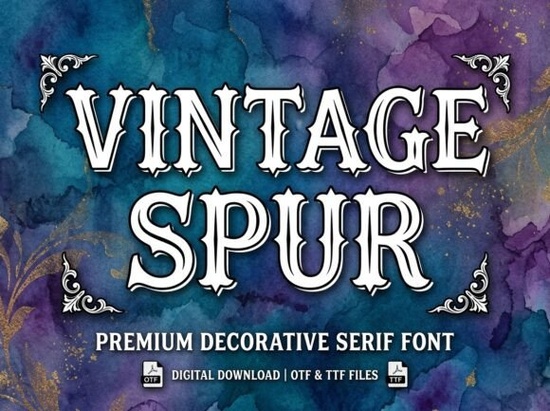
Vintage Spur Font
If you're looking for a bold, nostalgic display font that works as well on a vintage circus poster as it does on a custom vinyl decal or tattoo flash sheet, Vintage Spur Font fits the bill. It’s not just another retro typeface it’s built with real design intent: clean outlines, elegant inline detailing, and those unmistakable spurred serifs that nod to early 20th-century signage and Western Americana. Whether you’re designing for print-on-demand apparel, hand-cut vinyl projects, or digital coloring pages, this font gives you flexibility without sacrificing character.
What makes Vintage Spur different from other vintage fonts?
Most retro display fonts lean heavily into distressing grunge textures, ink bleeds, or uneven strokes. Vintage Spur takes a cleaner approach. Its outline structure means it scales beautifully at any size, and the subtle inline detail adds depth without clutter. That makes it especially practical for crafters using Cricut or Silhouette machines: no thin, fragile strokes to break during weeding, and easy layering for multi-color vinyl projects. You can also use it confidently in monogram designs like those used for wedding couple monograms because the letterforms hold clarity even when tightly spaced or stylized.
It’s also one of the few vintage-style fonts that reads well in both large-scale applications (think banners or shop signage) and smaller uses like social media graphics or product labels. Unlike overly ornate scripts or condensed western fonts, Vintage Spur keeps its personality while staying legible.
Where do designers actually use this font?
Here are some everyday uses based on what real customers tell us they’ve made:
• Circus-themed party invites and printable decorations (especially for birthdays or baby showers)
• Western-inspired t-shirt designs for small-batch apparel shops
• Tattoo flash sheets and shop branding for independent artists
• Custom monograms for wedding decor pair it with a simpler script or serif for contrast
• Digital coloring pages where outline fonts double as line art
Because it includes full uppercase, lowercase, numerals, and standard punctuation, it’s more versatile than many single-purpose display fonts. You won’t need to hunt for alternate glyphs or work around missing characters mid-project.
How does it compare to similar decorative fonts?
If you’ve used Vintage Spur Font, you may also appreciate how it sits alongside other popular options in the decorative fonts category. For example, a classic monogram font might give you tighter, more formal letter combinations ideal for engraved coasters or bridal stationery. Meanwhile, Aurelina Monogram Font leans into delicate flourishes and interlocking initials, better suited for romantic or feminine themes. Vintage Spur stands apart by offering boldness and clarity first without leaning too far into either “cute” or “aggressive.”
That balance is why it’s become a go-to for small businesses creating cohesive brand assets: a logo, matching social banners, and merch all from one consistent type family.
Practical tips for getting the most out of Vintage Spur
• Layer it smartly. Since it’s an outline font, try filling the interior with a solid color or gradient great for SVG files or layered vinyl cuts.
• Pair it thoughtfully. Avoid other highly decorative fonts nearby. A clean sans-serif (like Montserrat or Open Sans) or a modest serif (like Merriweather) will let Vintage Spur shine.
• Test before cutting. If you’re using it for heat transfer or iron-on vinyl, run a small test cut first especially if scaling below 1.5 inches tall.
• Use it for accessibility-friendly contrast. Its strong stroke weight and open counters make it easier to read on low-contrast backgrounds than many distressed fonts.
One thing users consistently mention: it prints cleanly from home printers and holds up well on textured paper stocks so if you’re doing DIY greeting cards or boutique packaging, you won’t lose definition.